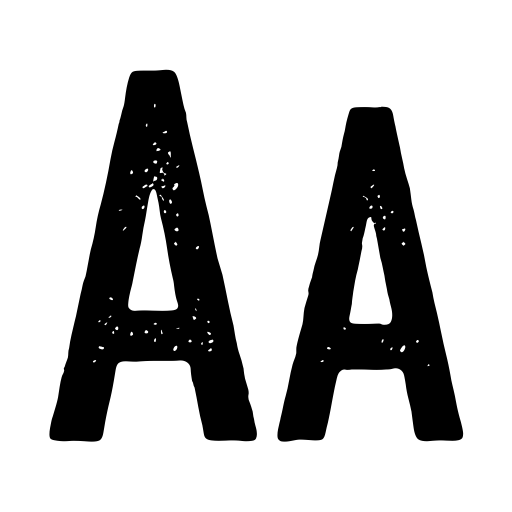
Bar Booth at Matts is a bold, condensed sans-serif font with a vintage, hand-crafted feel thanks to its textured, slightly distressed strokes. Its tall, narrow letterforms and strong presence make it perfect for eye-catching headlines, logos, and branding that aim to evoke a nostalgic yet rugged atmosphere. This font works great for projects seeking a blend of boldness and character, such as posters, packaging, and trendy editorial designs.
Bar Booth at Matts Font
About Bar Booth at Matts Font
| Font family | Bar Booth at Matts Font |